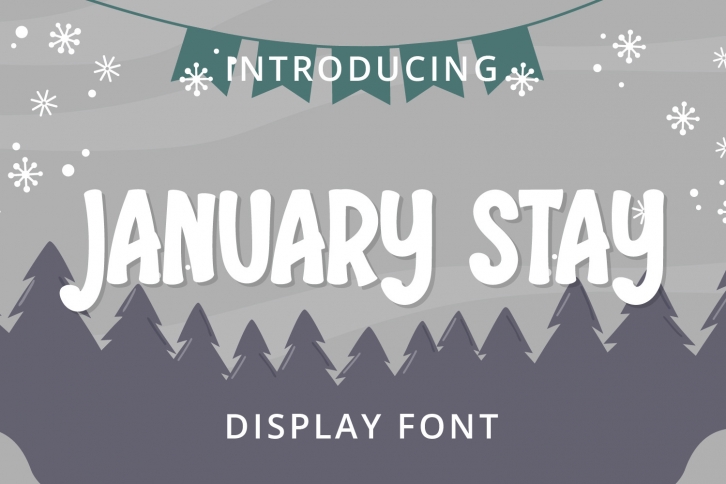
January Stay is a playful and cute display font. Whether you’re using it for crafts, digital design, presentations, or making greeting cards, this font has the potential to become your favorite go-to font, no matter the occasion!